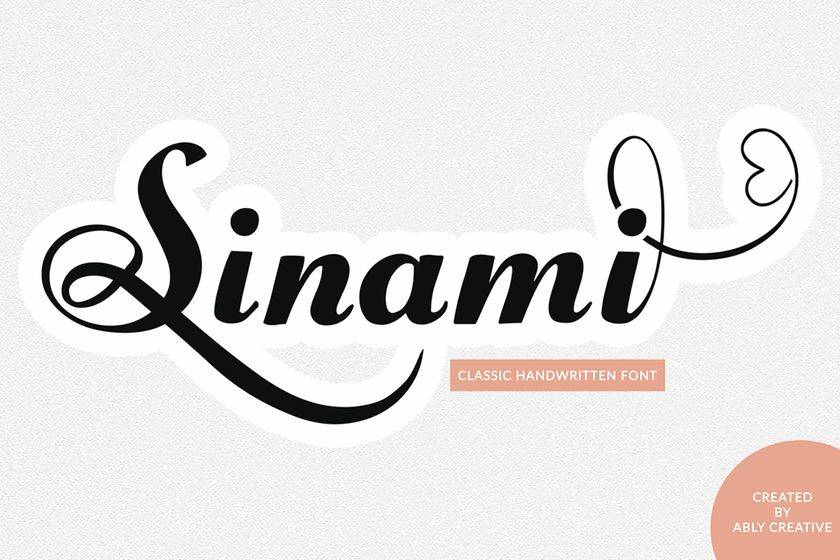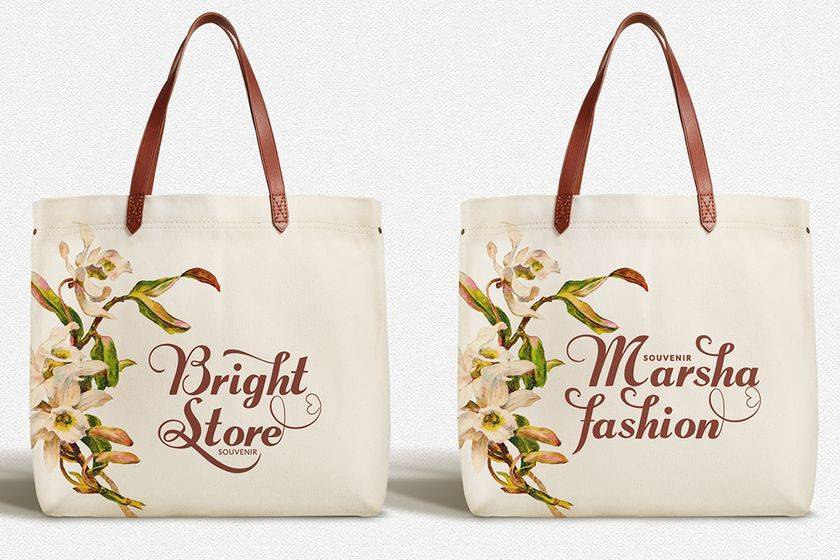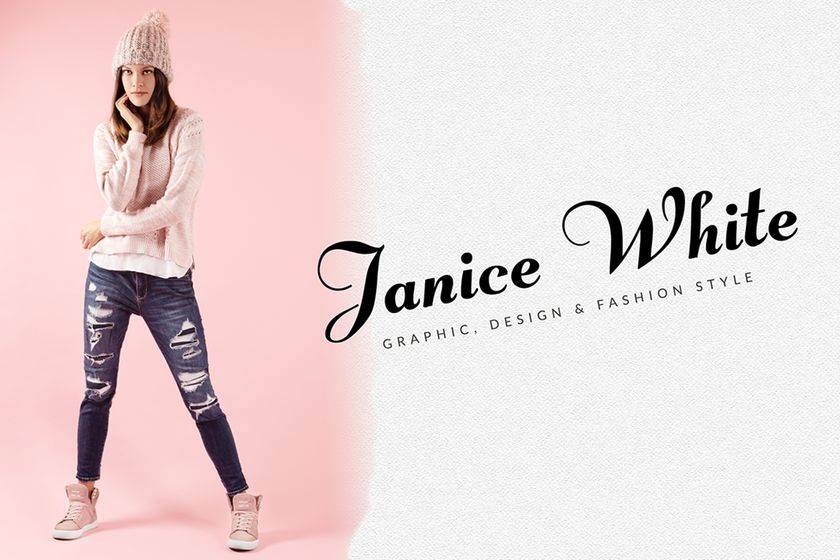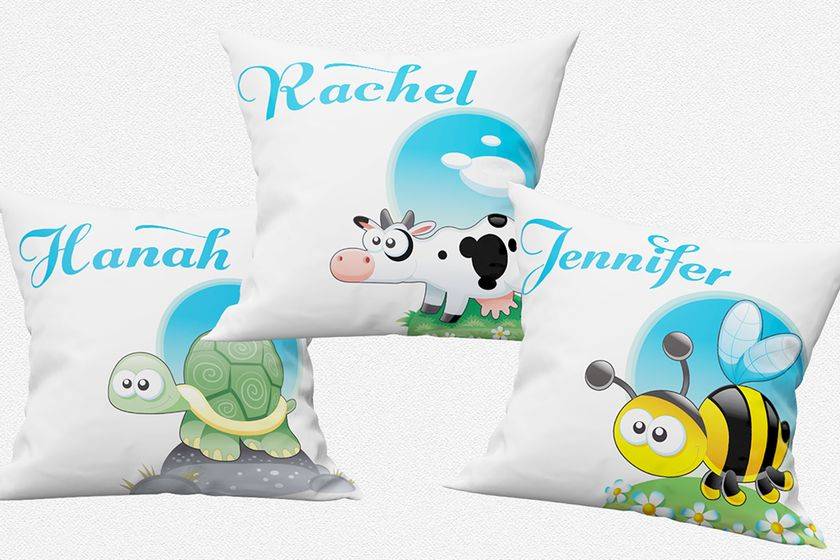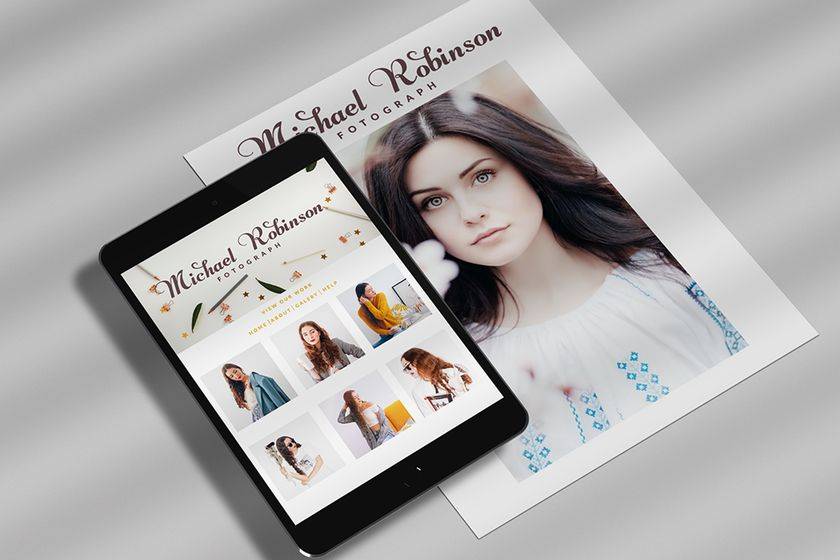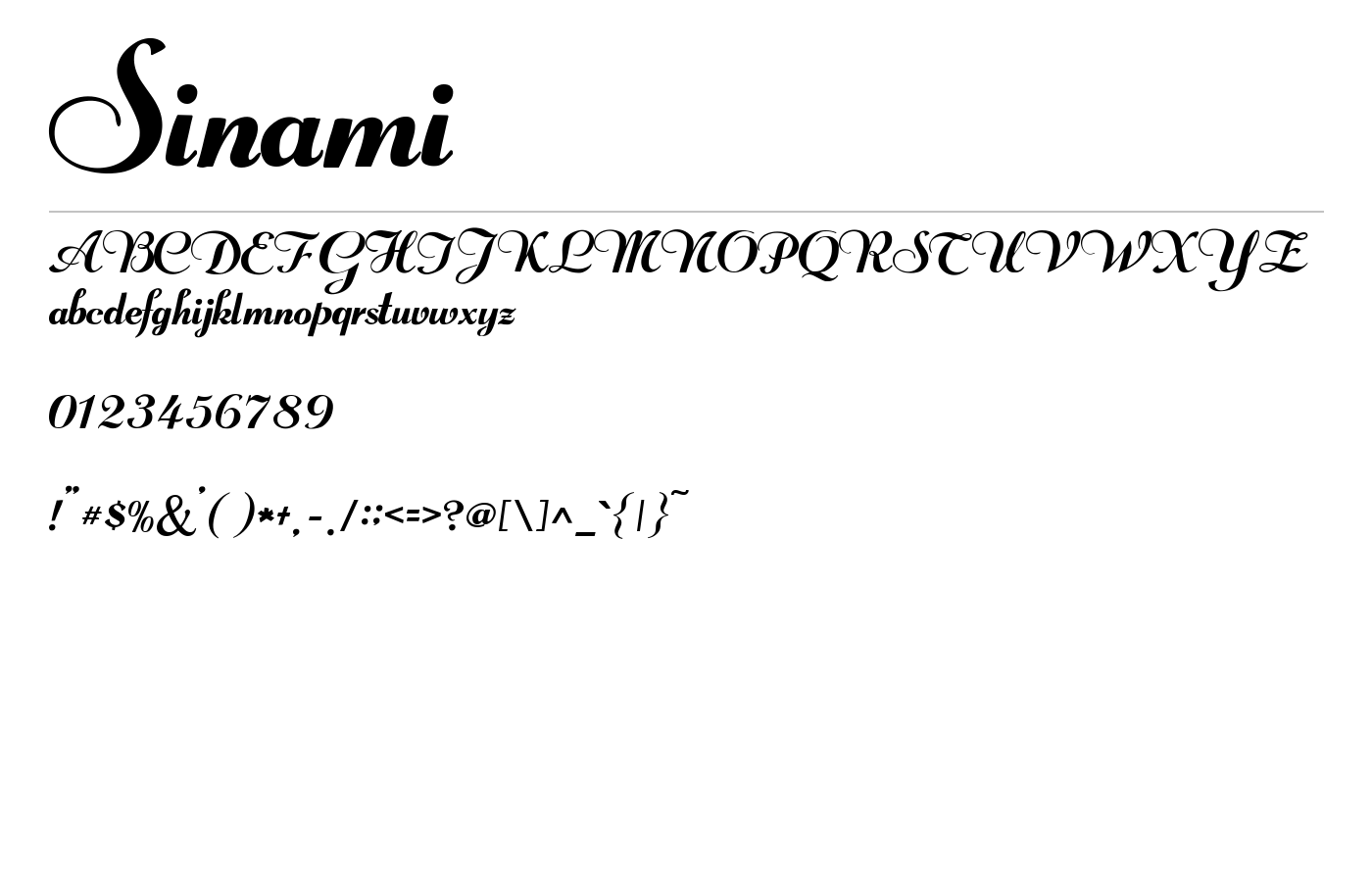
Sinami is an elegant script font with a smooth, flowing style characterized by its medium weight and moderate contrast between thick and thin strokes. Its refined curves and calligraphic flair make it perfect for luxury branding, invitations, and editorial headlines where a touch of sophistication and classic charm is desired. This font works beautifully in designs that require a graceful, timeless feel with a modern twist.
Sinami Font
About Sinami Font